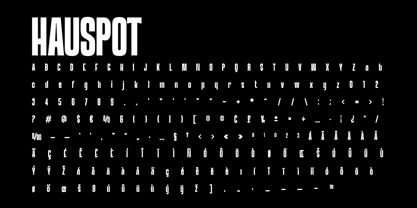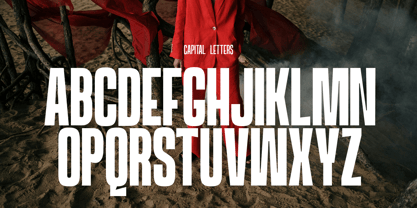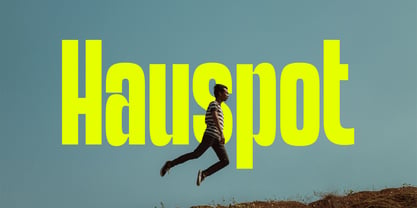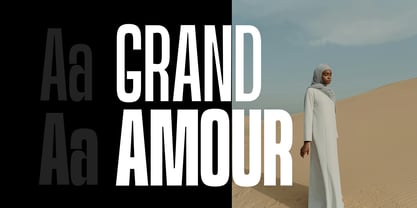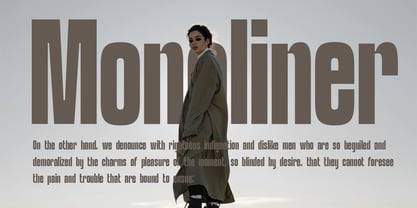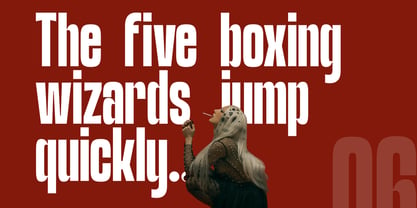
Hauspot Display
by FoxType
The Hauspot Display Font Family was designed by Evin Tony and published by FoxType. Hauspot Display contains 4 styles and family package options. More about this family
Hauspot is a neatly and precisely designed modern typeface created especially for branding, posters, and bold visual communication. With its strong letterforms and clean proportions, Hauspot delivers a confident, contemporary look that instantly elevates headlines and brand identities. Designed with clarity and versatility in mind, Hauspot works beautifully across both digital and print projects. Whether you’re crafting striking posters, magazine layouts, logos, or cover designs, this font maintains excellent readability while making a powerful visual statement. The font family includes four carefully crafted weights, allowing designers to create clear hierarchy and expressive layouts with ease. From minimal modern branding to bold editorial headlines, Hauspot adapts seamlessly to a wide range of creative needs. Key Features Neatly and precisely designed letterforms Four versatile weights included Clean, modern style Perfect for branding, posters, headlines, magazines, covers, and more Professional typography with strong visual impact Hauspot is an excellent choice for designers looking for a modern, bold, and reliable typeface that performs consistently across branding and display applications.